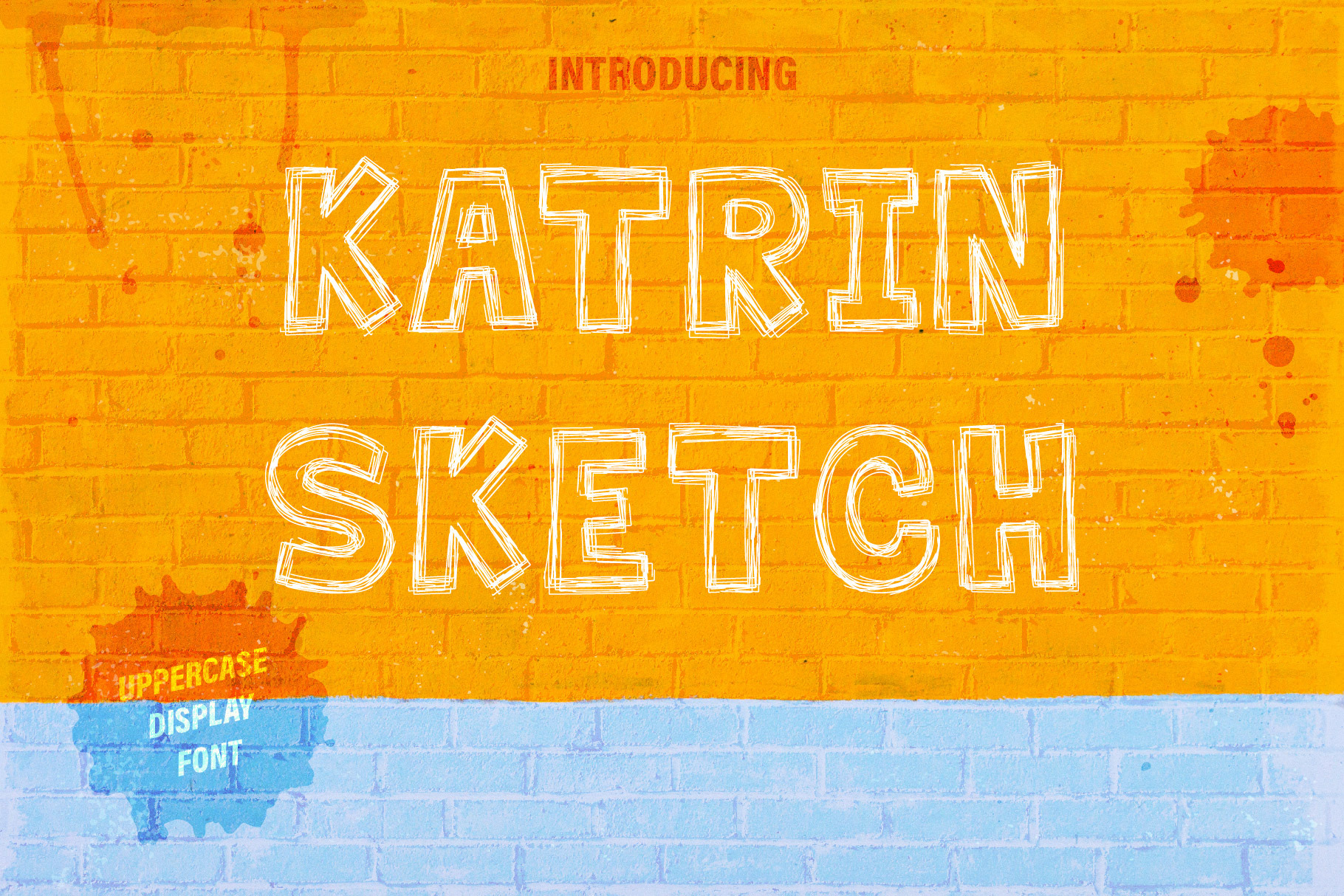
Katrin Sketch - Uppercase Font
Introducing Katrin Sketch! It's a funny uppercase font with a sketched look. Perfect for titles and short phrases.
Katrin Sketch is a well readable outline font that stands out due to the multiple strokes of the contour.
It is an uppercase font. But contains lower and upper case letters that differ slightly in contour. This will allow you to get a handwritten effect
Katrin Sketch Features:
- Uppercase letters